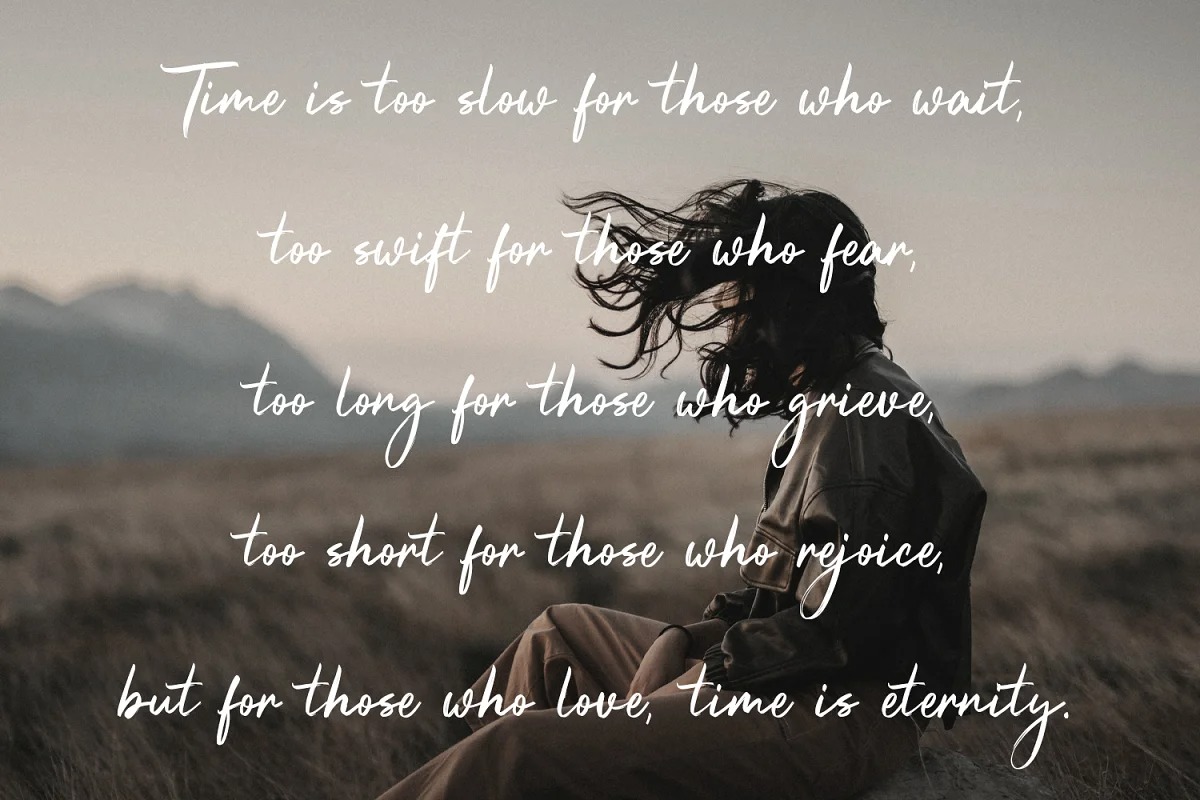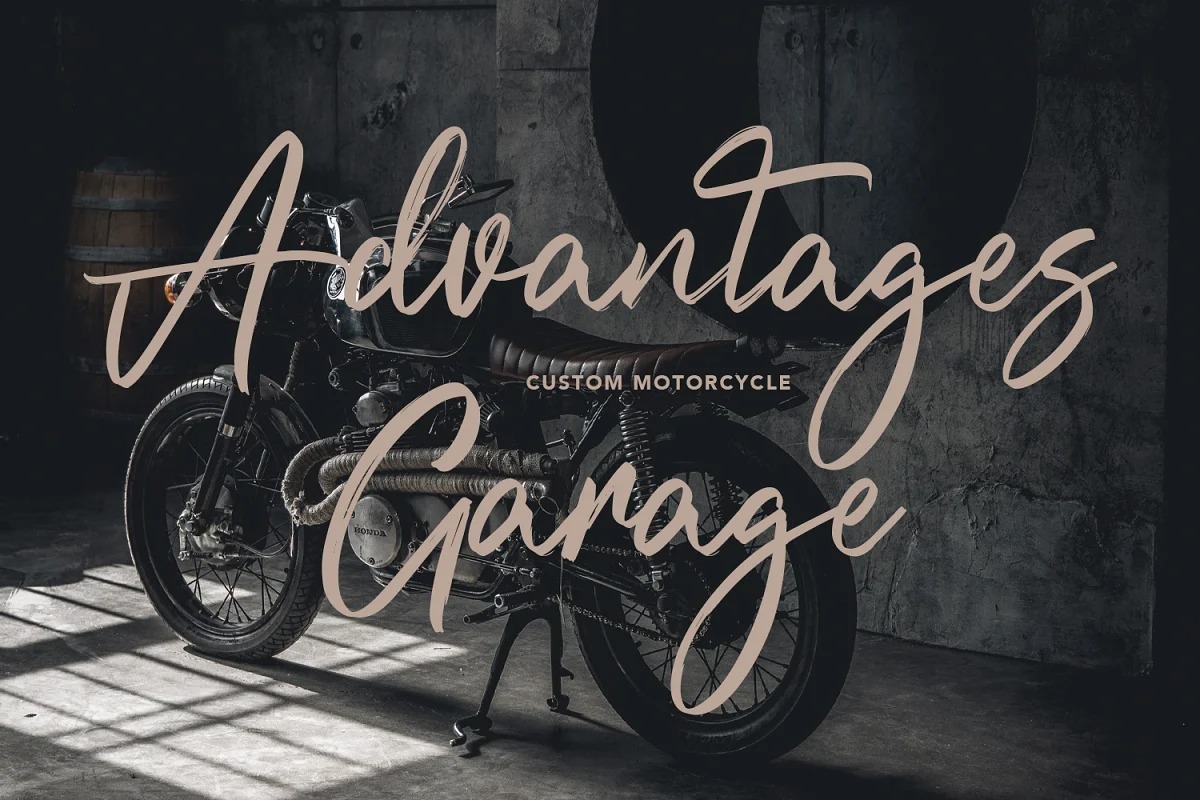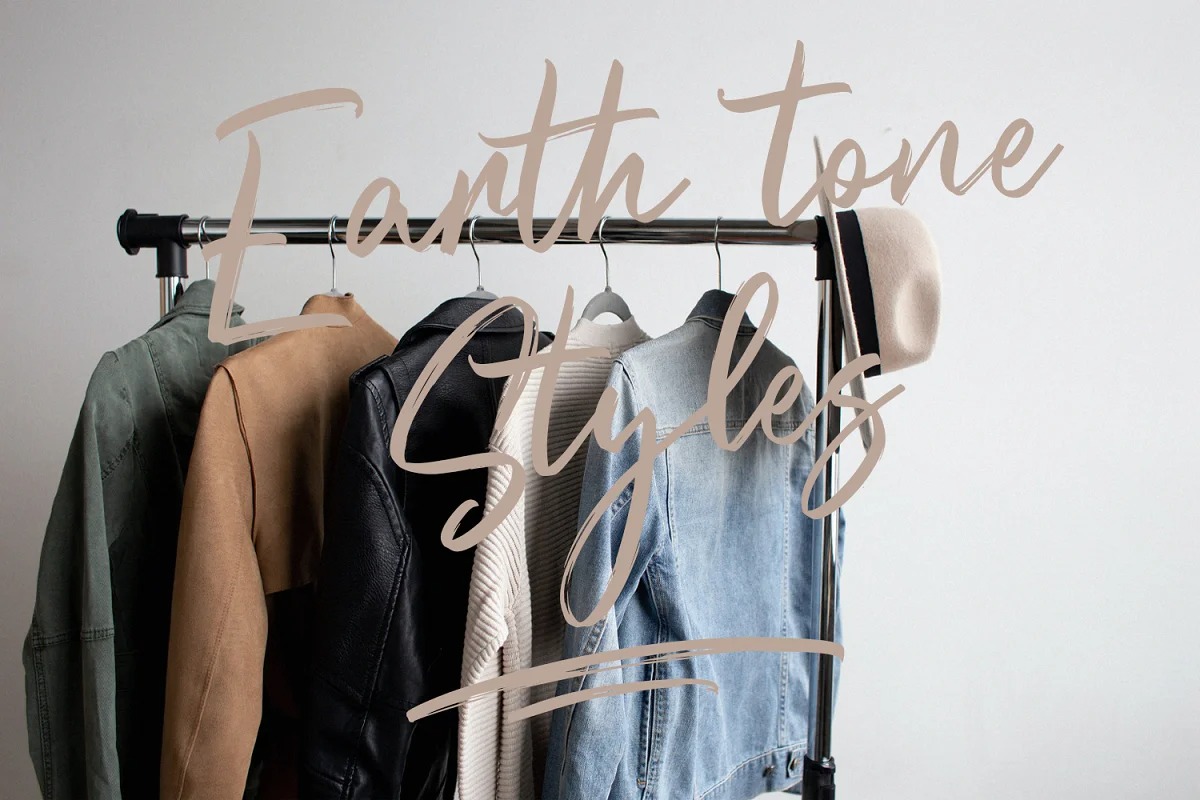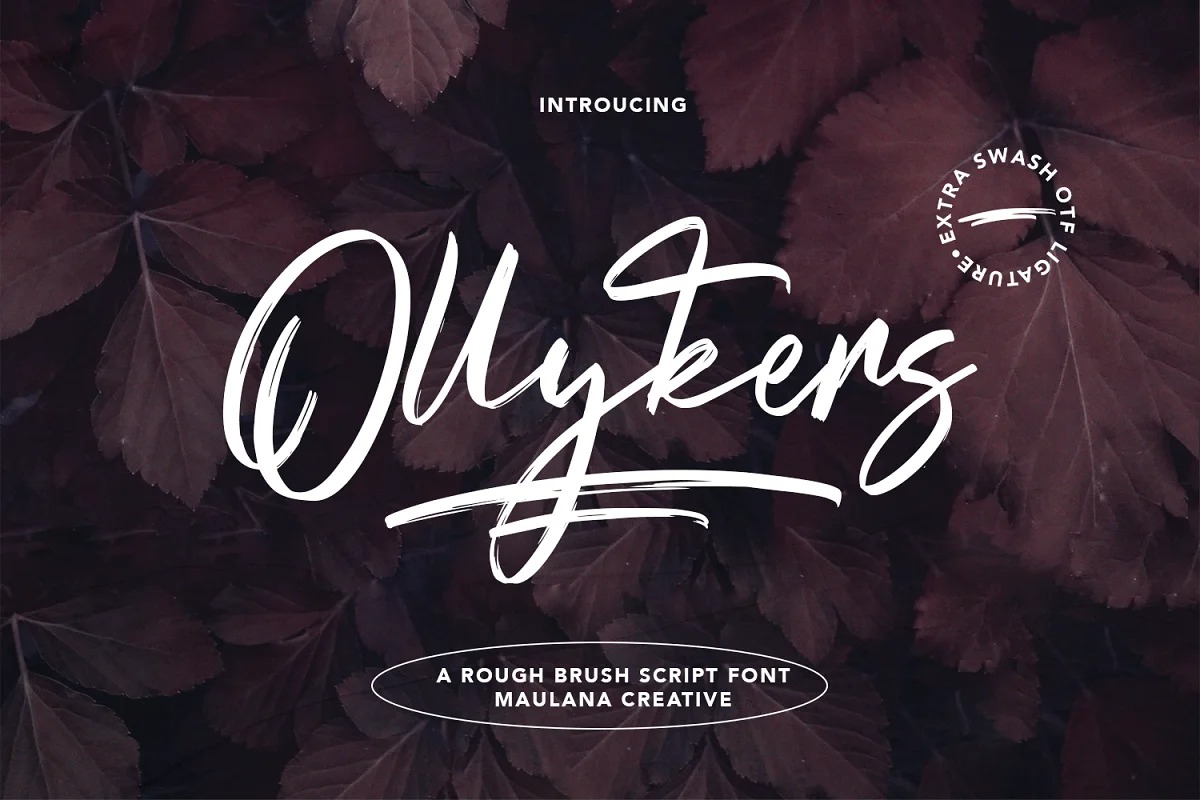
Ollykers Font
Ollykers Brush Font
This font is a textured natural style and classy style with a clear style and dramatic movement. It has Opentype features of ligatures, alternate lowercase, swashes and couple of cursive characters lowercase such as b,d,g,h,k,t. Makes it a perfect choice for branding and digital designs. Use this font for logos, social media, websites, blogs, instagram, social media, business cards, branding, and more! Ollykers brush script font support multilingual more than 100+ language. and good pair for your secondary text font with sans or serif. Make a stunning work with Ollykers brush script font.